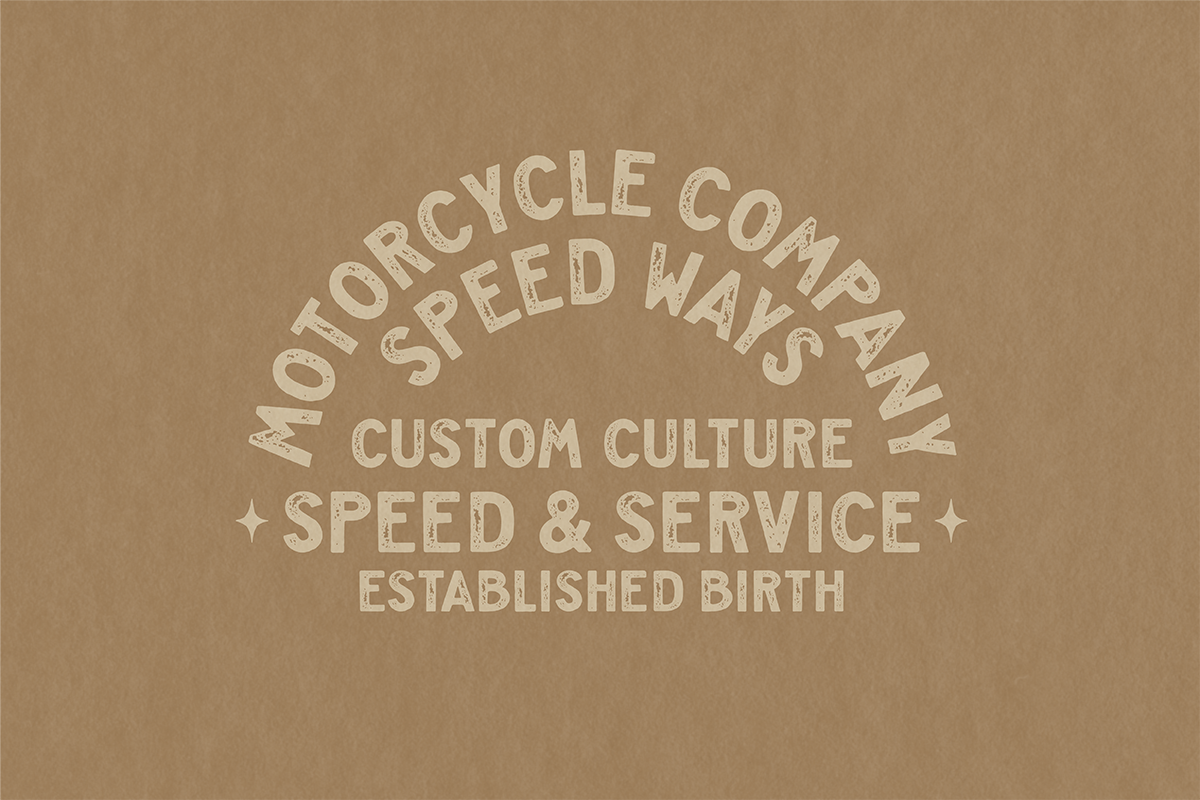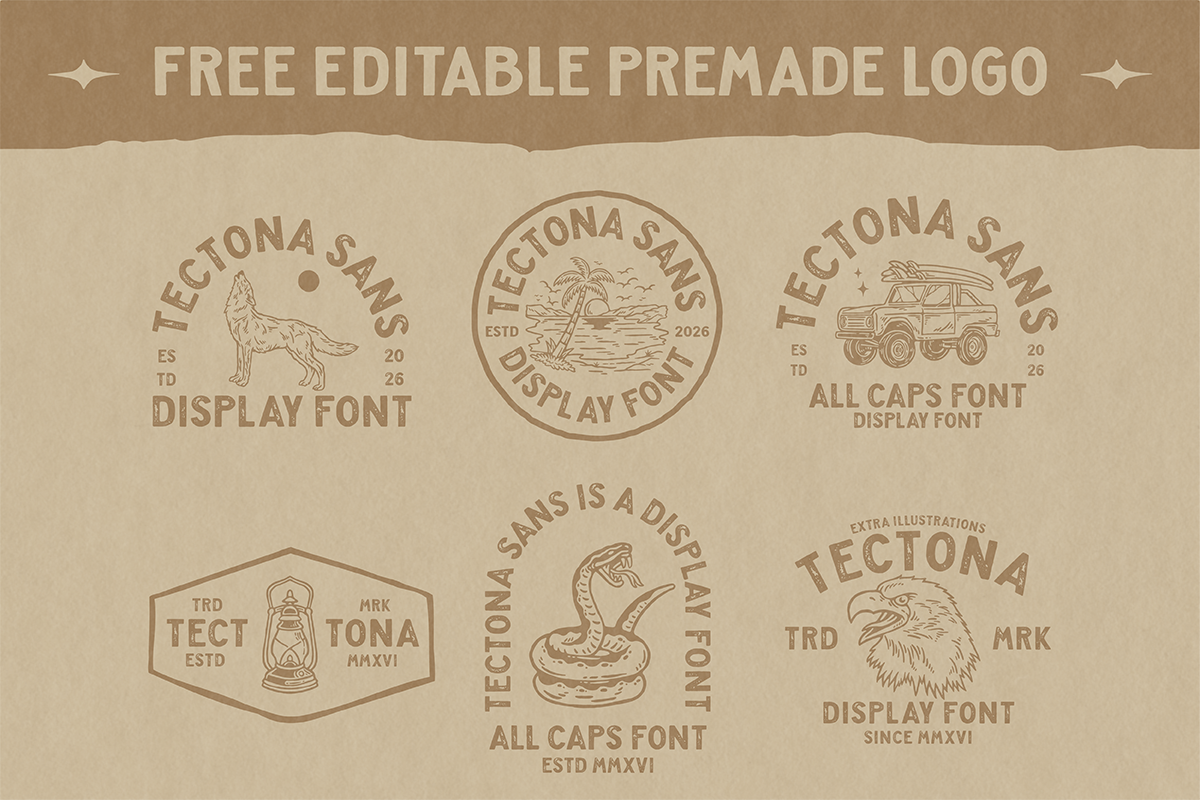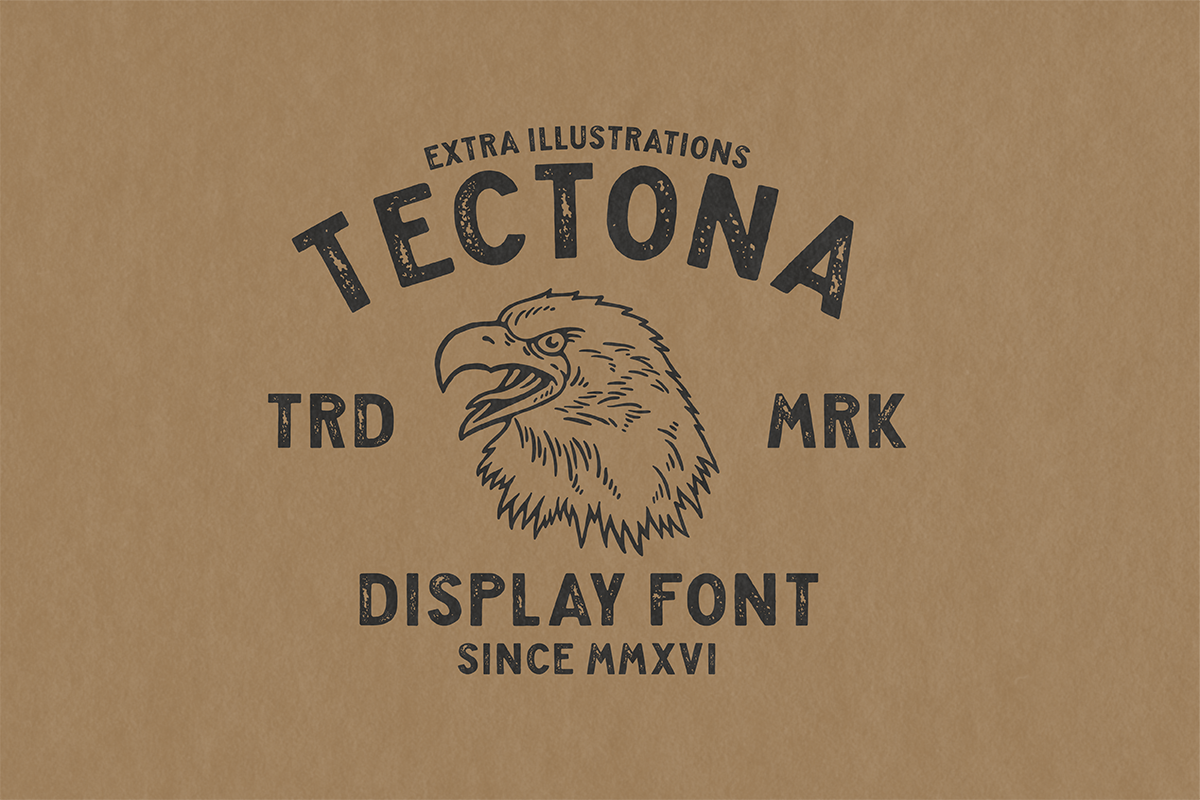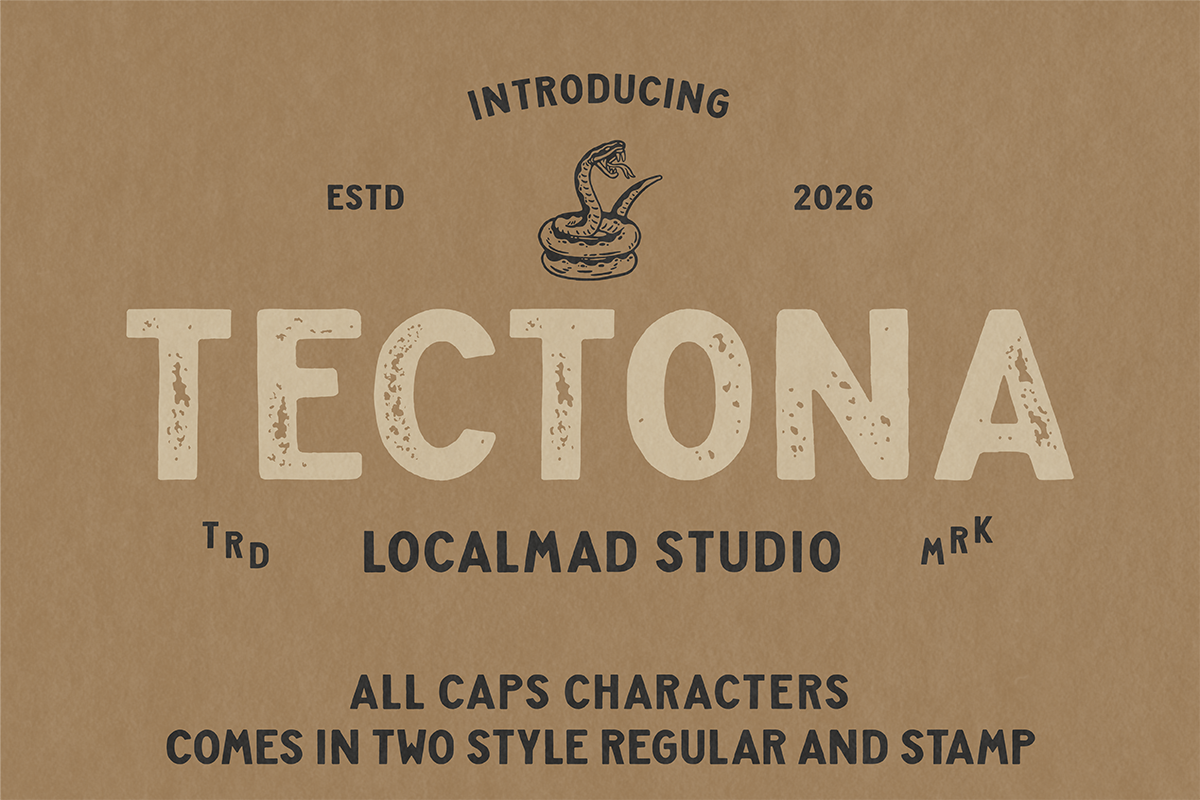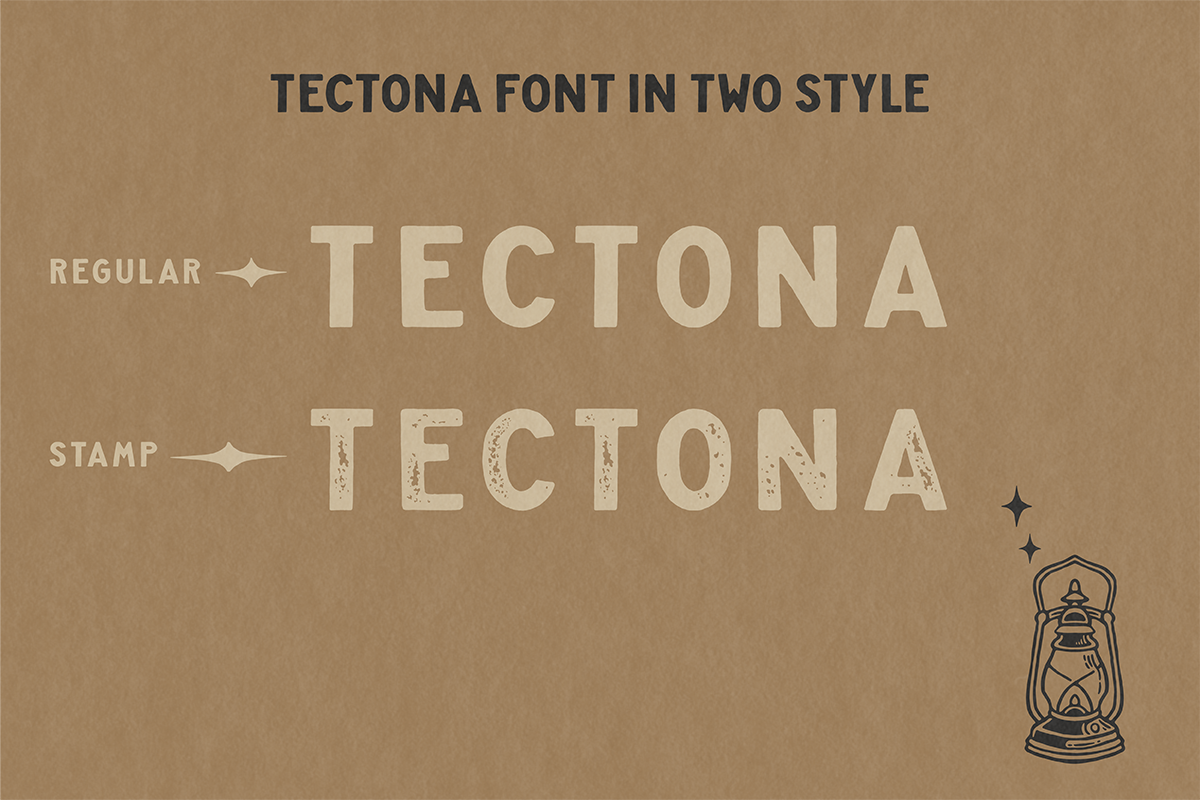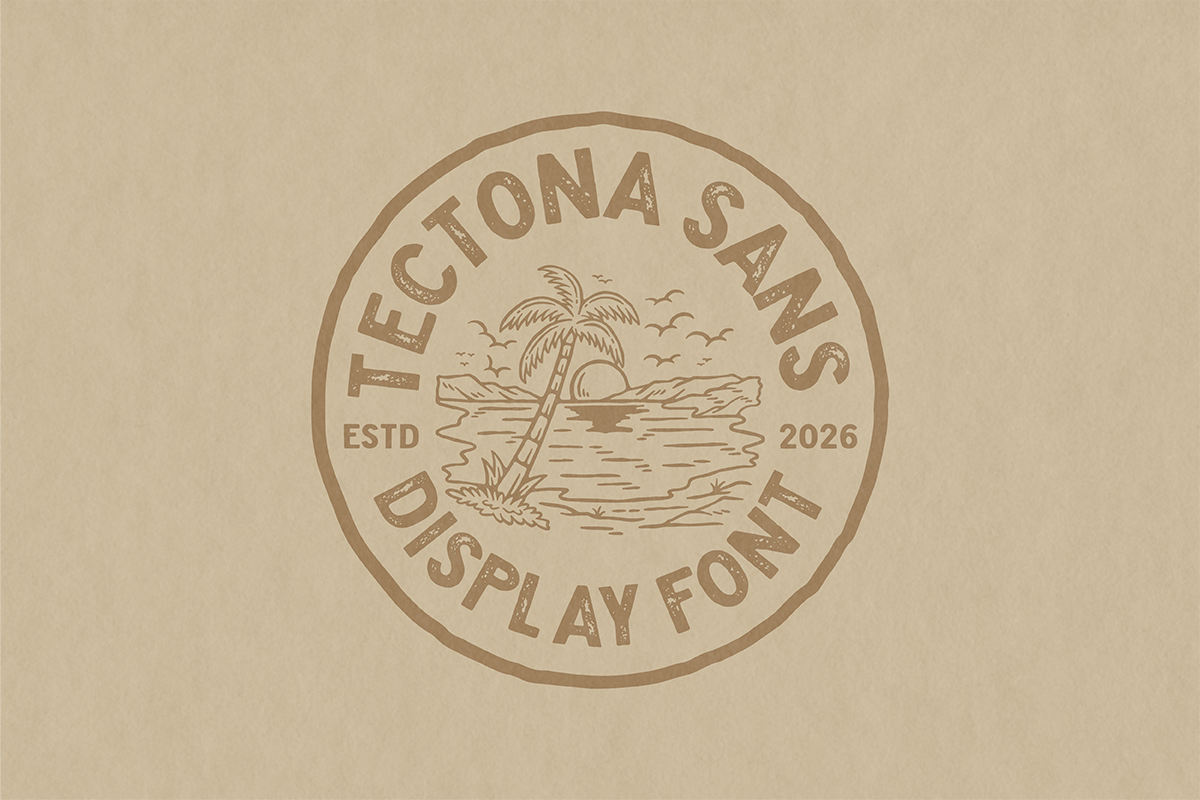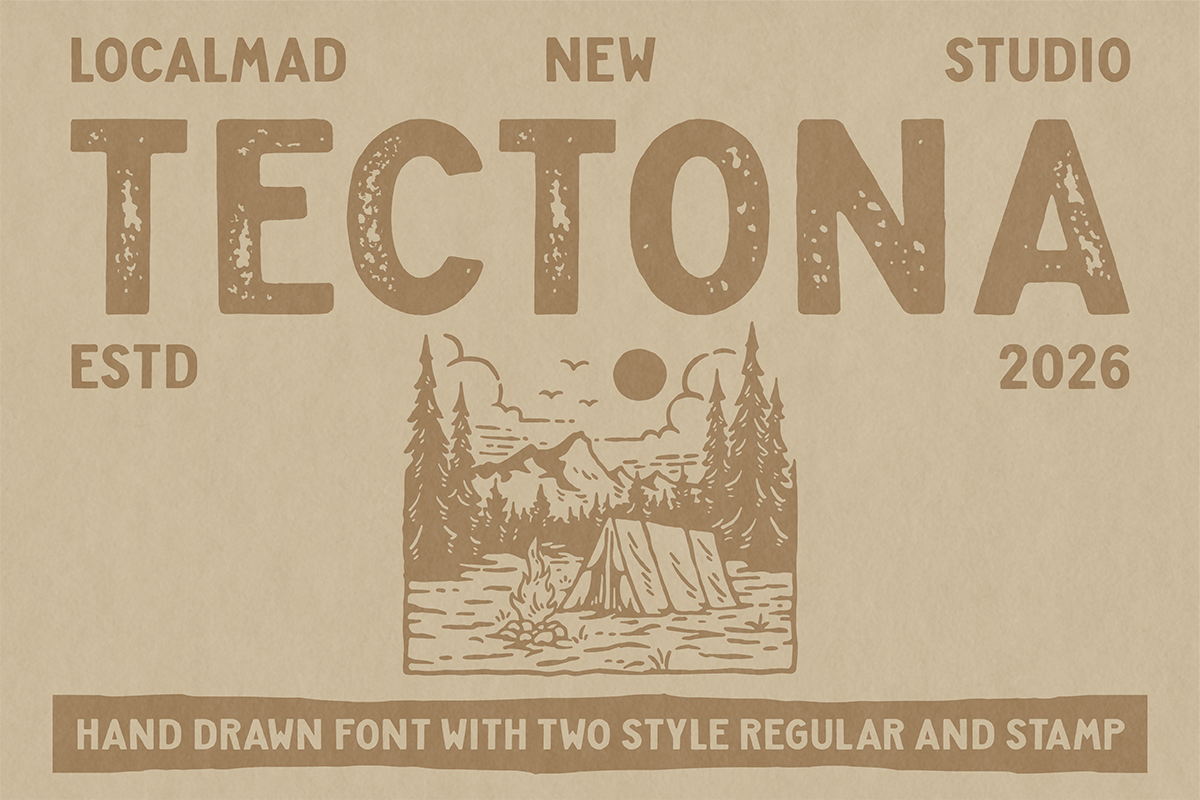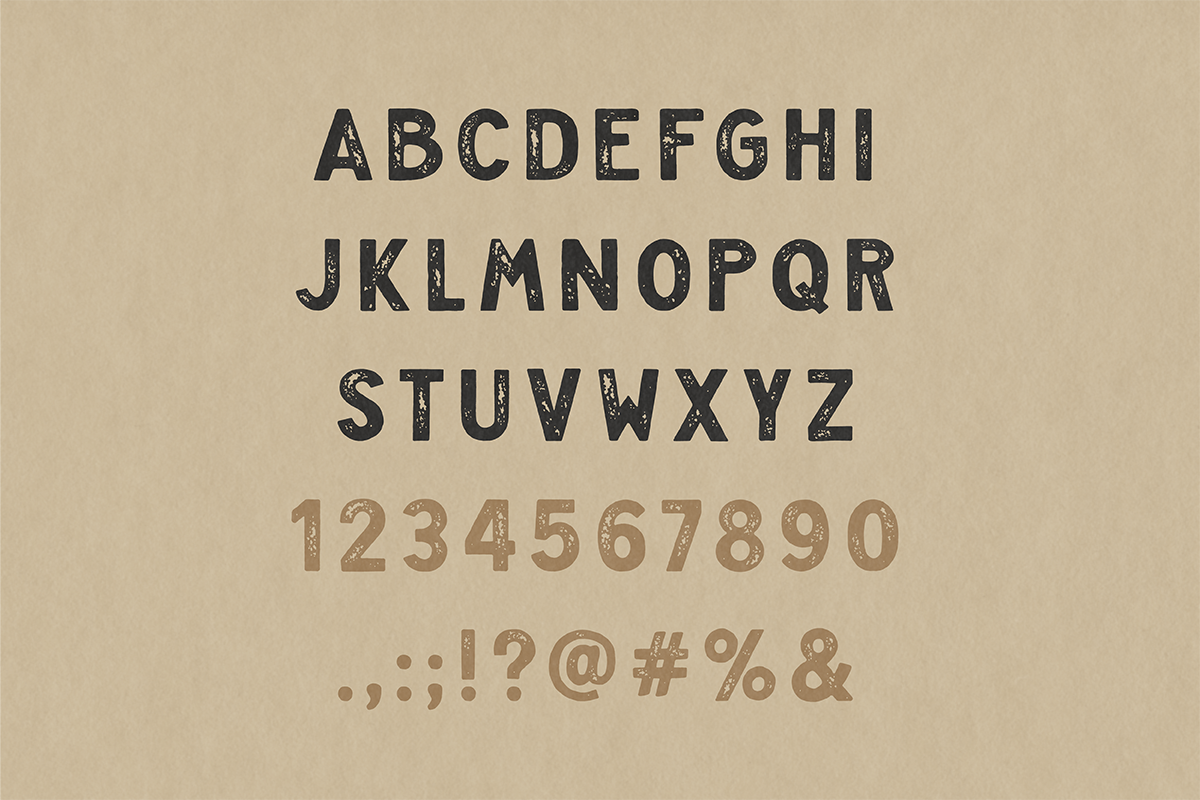
Tectona - Font & Extras!
TECTONA comes with uppercase letters, numbers and some punctuation.
Tectona is a bold vintage display font featuring Regular and Stamp styles. Inspired by classic American signage, heritage packaging, and handcrafted letterpress prints. Designed with strong geometric forms and subtle imperfections, Tectona delivers an authentic retro personality that feels timeless, rugged, and eye-catching.
This font comes with two styles:
Regular – Clean, bold, and highly legible.
Stamp – A distressed version featuring realistic worn textures for an authentic vintage print effect.
Perfect for logos, packaging, apparel, posters, labels, and retro-inspired branding.
Bring the charm of old print shops and classic Americana into your next design with TECTONA a display font built for bold ideas and timeless branding.